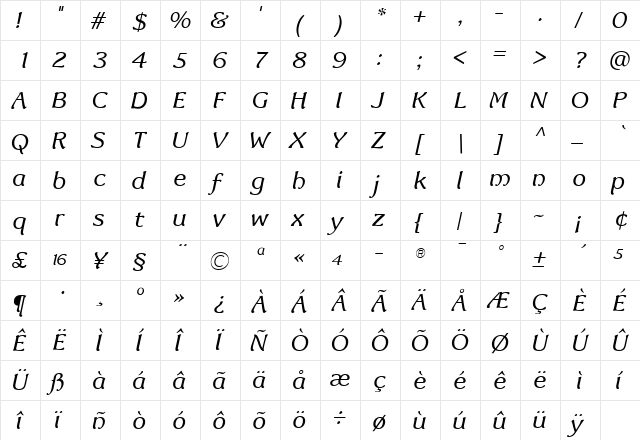
TFBrynMawr Book Italic
| Year | 1980 |
Design Context for TFBrynMawr Typeface
TFBrynMawr offers clean, dependable letterforms without strong stylistic allegiance, making it a practical choice for designers who need flexibility. The slanted form adds forward momentum and visual energy.
Pro Tip: Use TFBrynMawr for emphasis, pull quotes, and subheadings where its slanted energy can add rhythm to the layout.